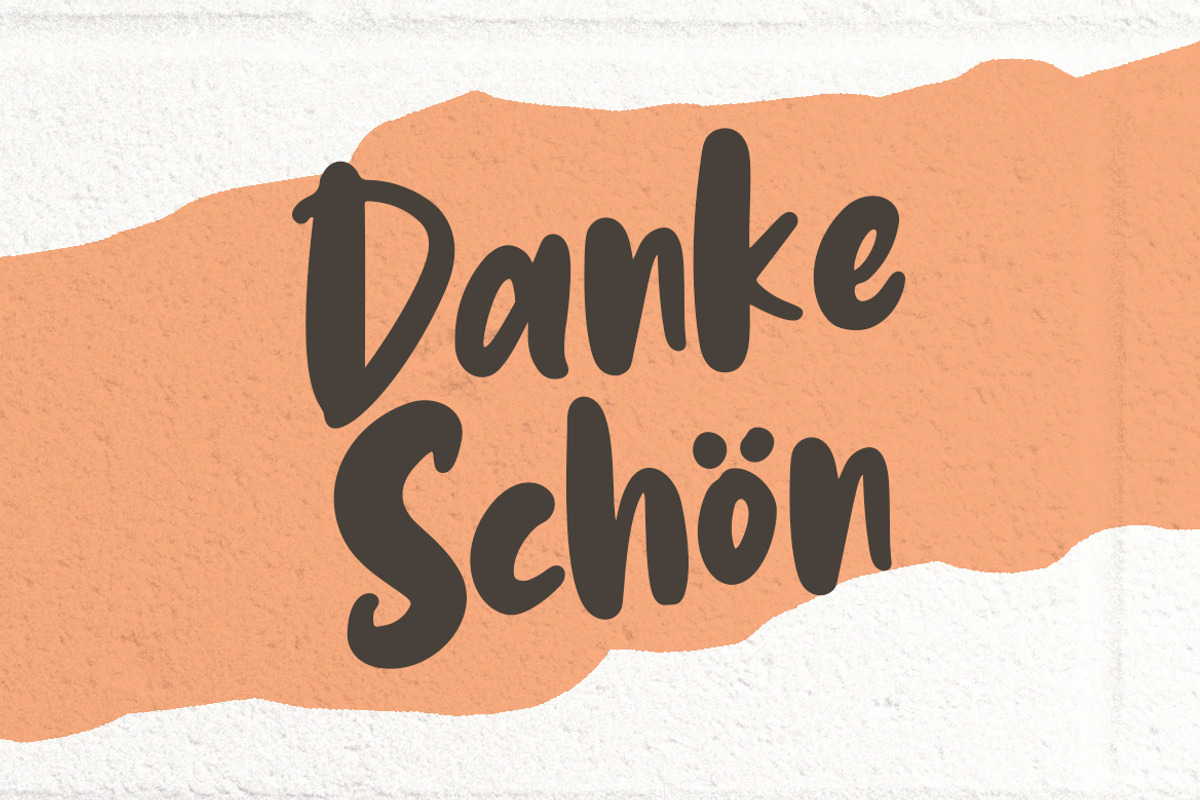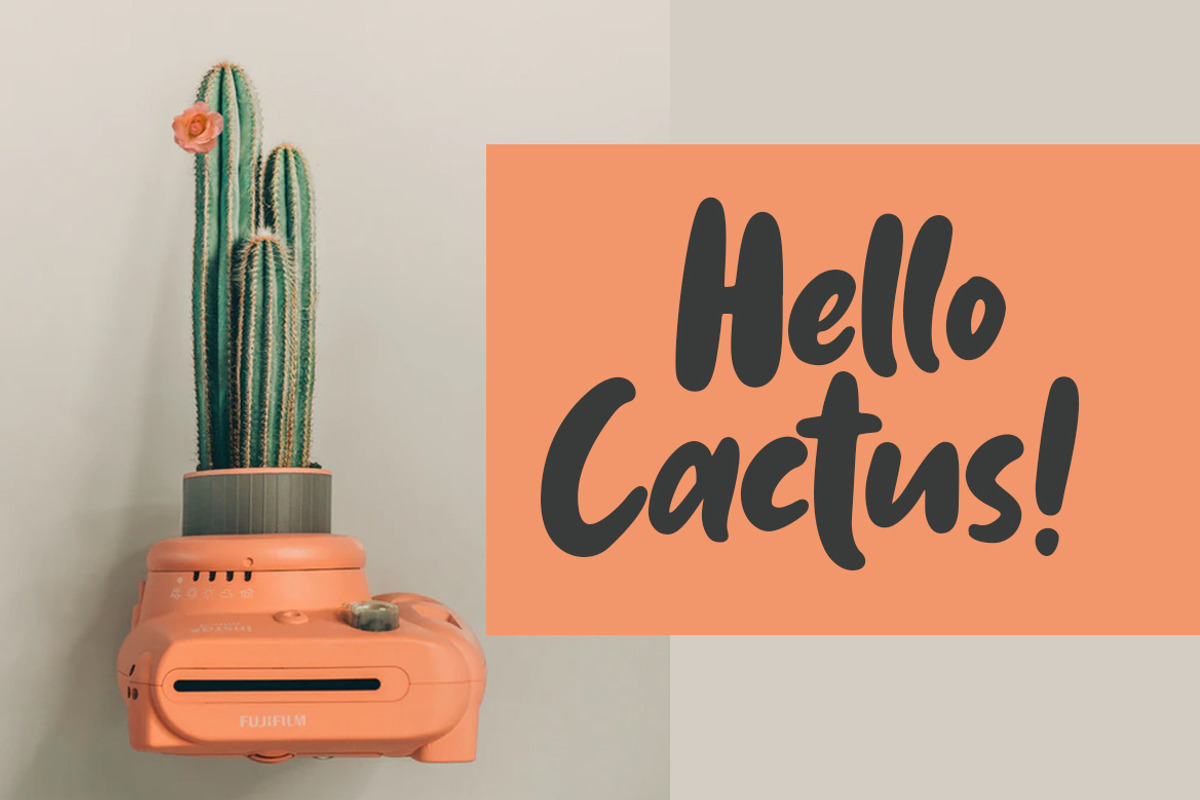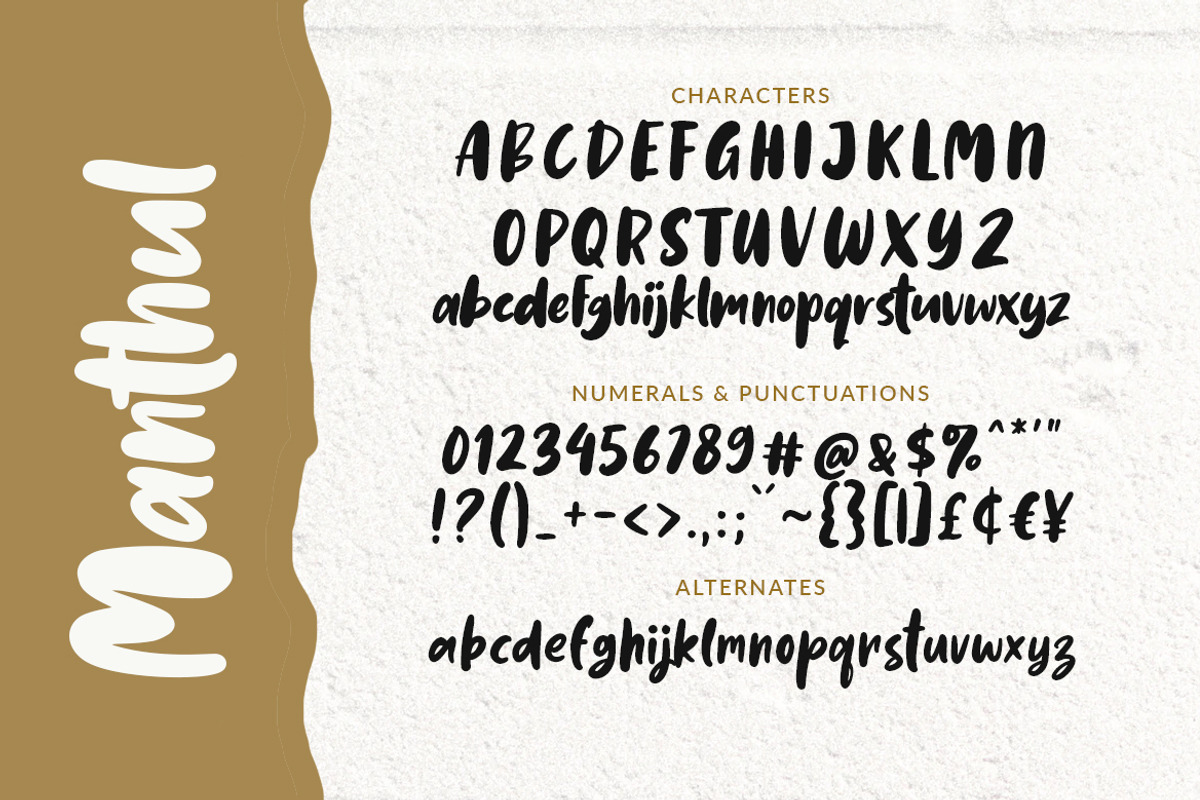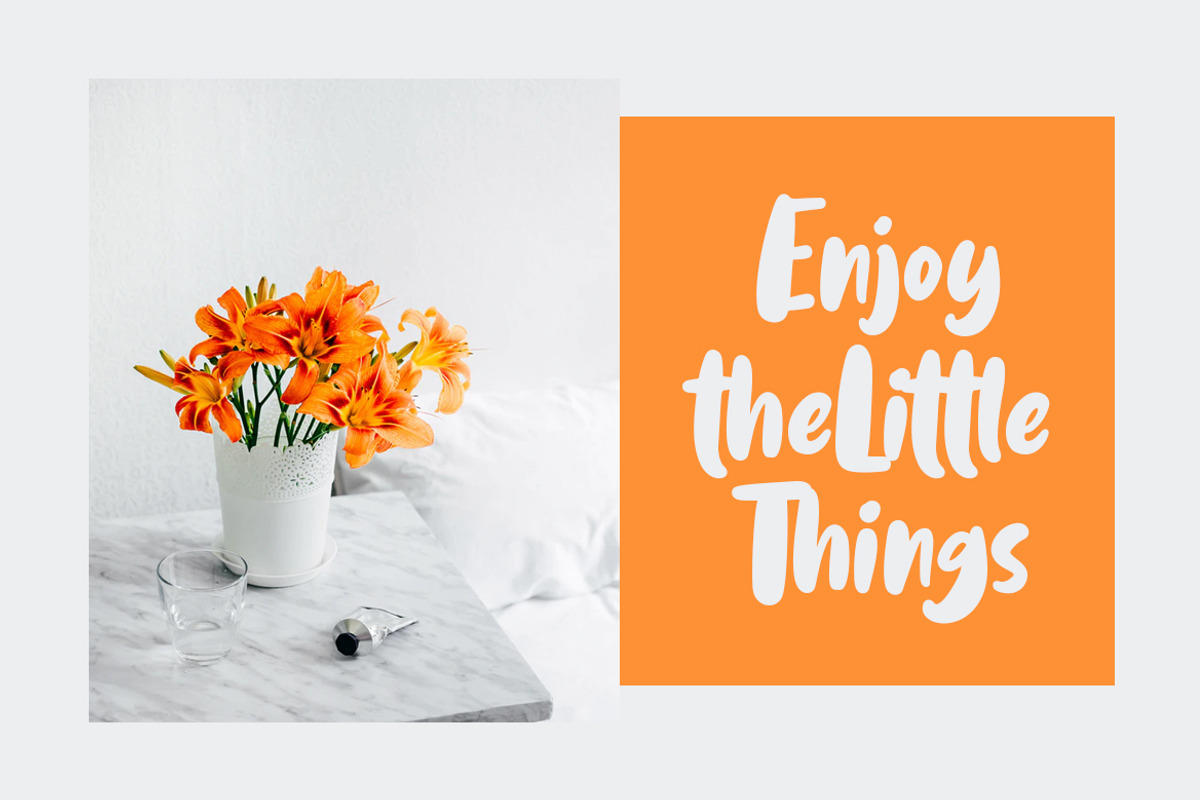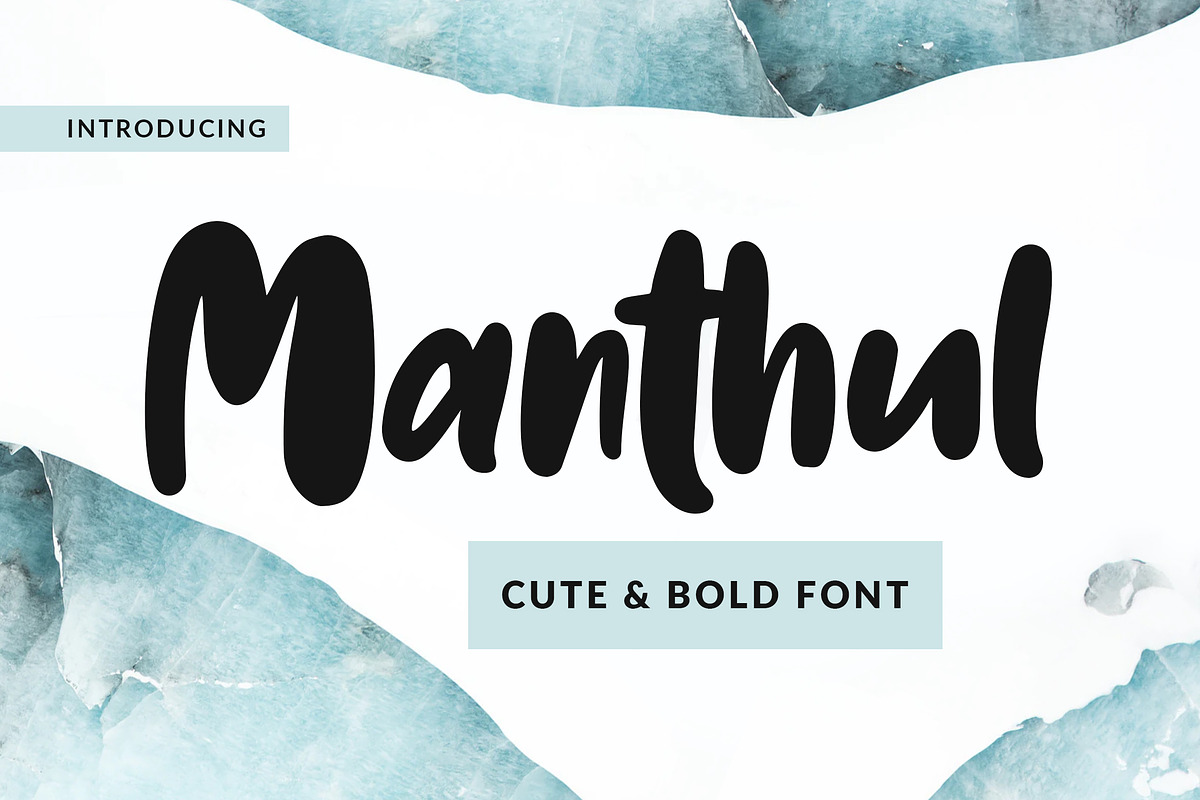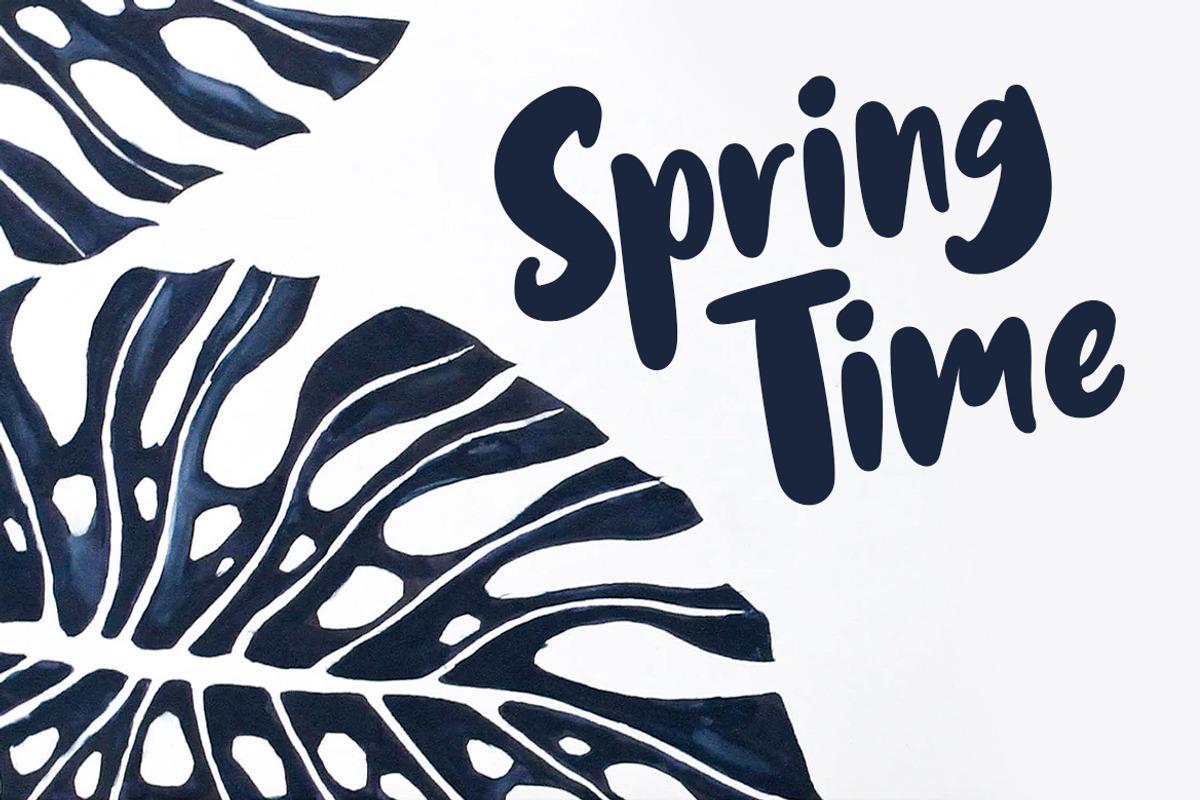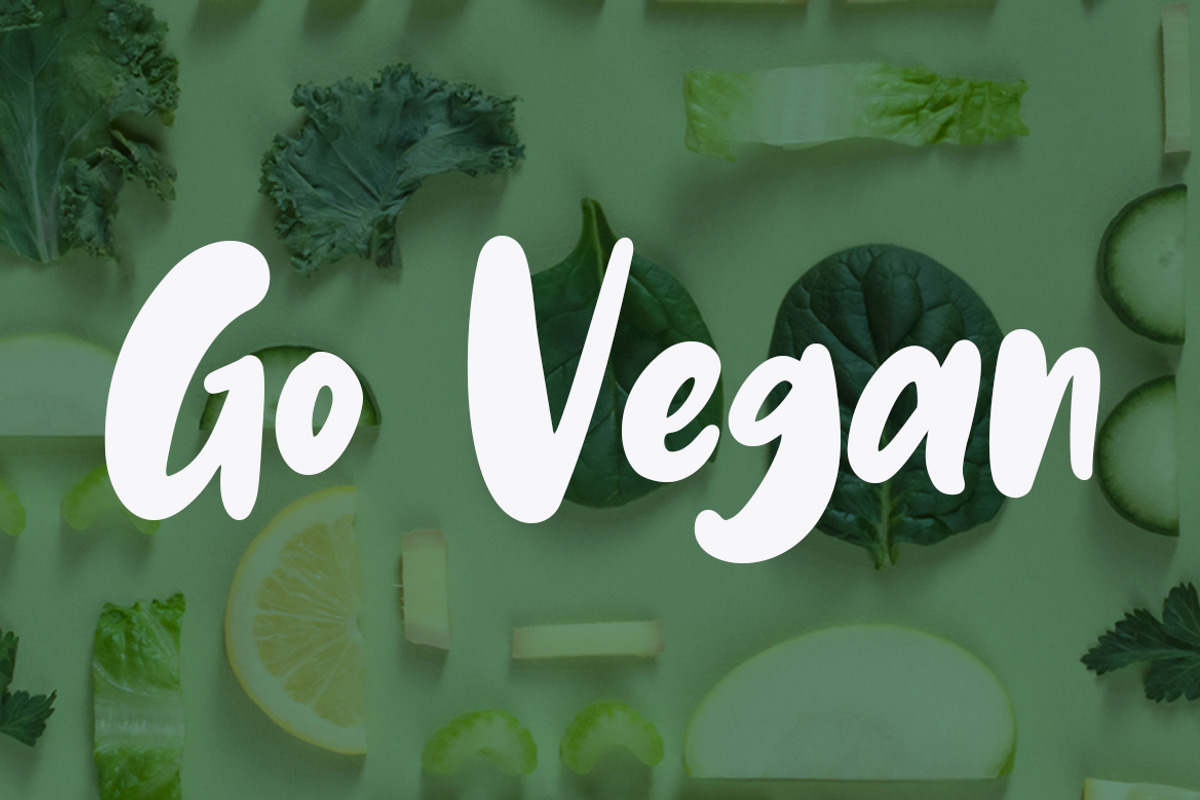
Manthul - Cute & Bold Font
Introducing Manthul cute and bold font, a new handwriting font with the style of the fun bounce and bold. Which is you can create a cute and fresh design.
Manthul is very suitable for logo design, kids t-shirts, birthday cards, cover books, magazines, flyers, quotes, packaging and of course much more. This font comes in uppercase, lowercase, punctuations, symbols & numerals, ligatures, and multilingual support.
Manthul - Cute & Bold Font by Weape Studio fits naturally into Branding, posters, packaging, typography.